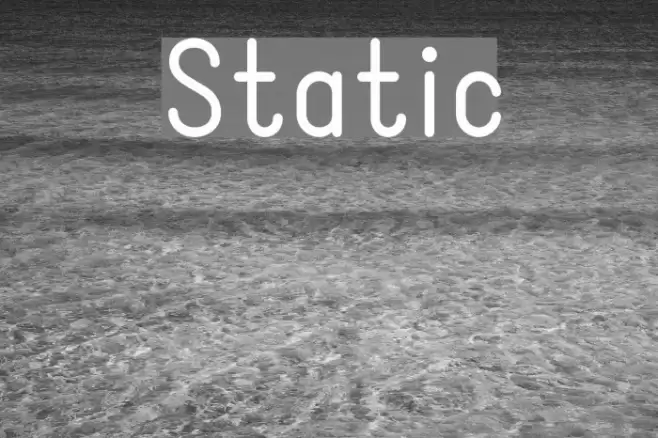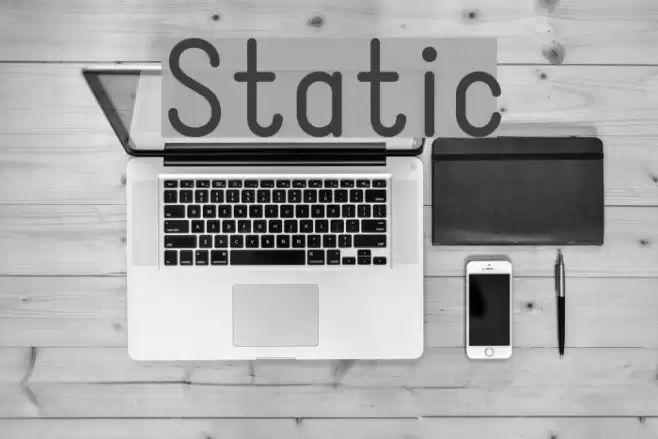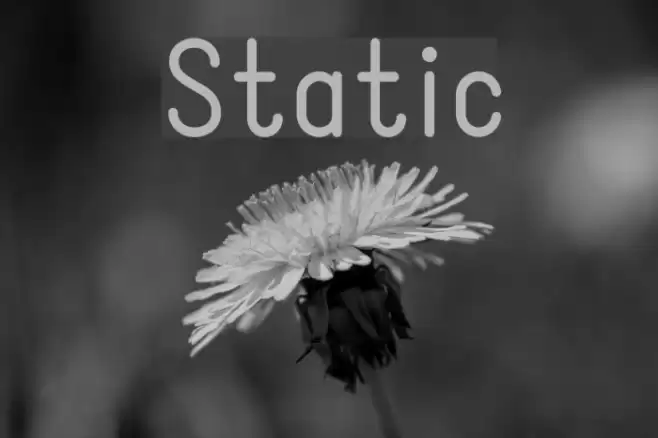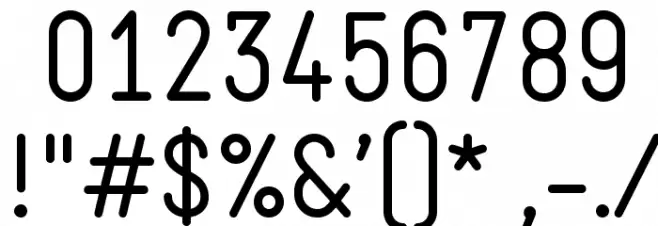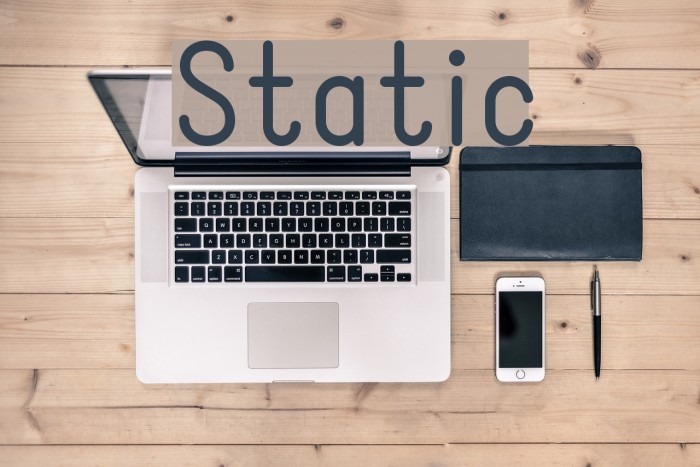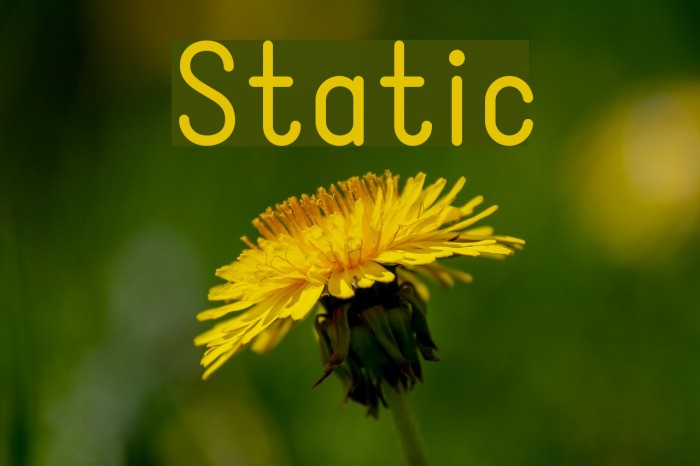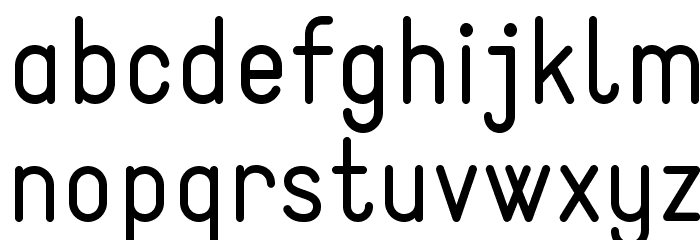
Static
This font features a clean and modern sans-serif design with rounded edges, giving it a friendly and approachable appearance. The uniform stroke width and geometric shapes provide a sense of balance and clarity. The uppercase and lowercase letters maintain consistent proportions, enhancing readability. Numbers and special characters are designed with the same attention to detail, ensuring a cohesive look across all elements. The overall style is minimalistic, making it versatile for various design applications.
A modern, rounded sans-serif font with a clean and approachable design.
- Proposed Projects: Ideal for branding, web design, user interfaces, and print materials where a modern and friendly aesthetic is desired.